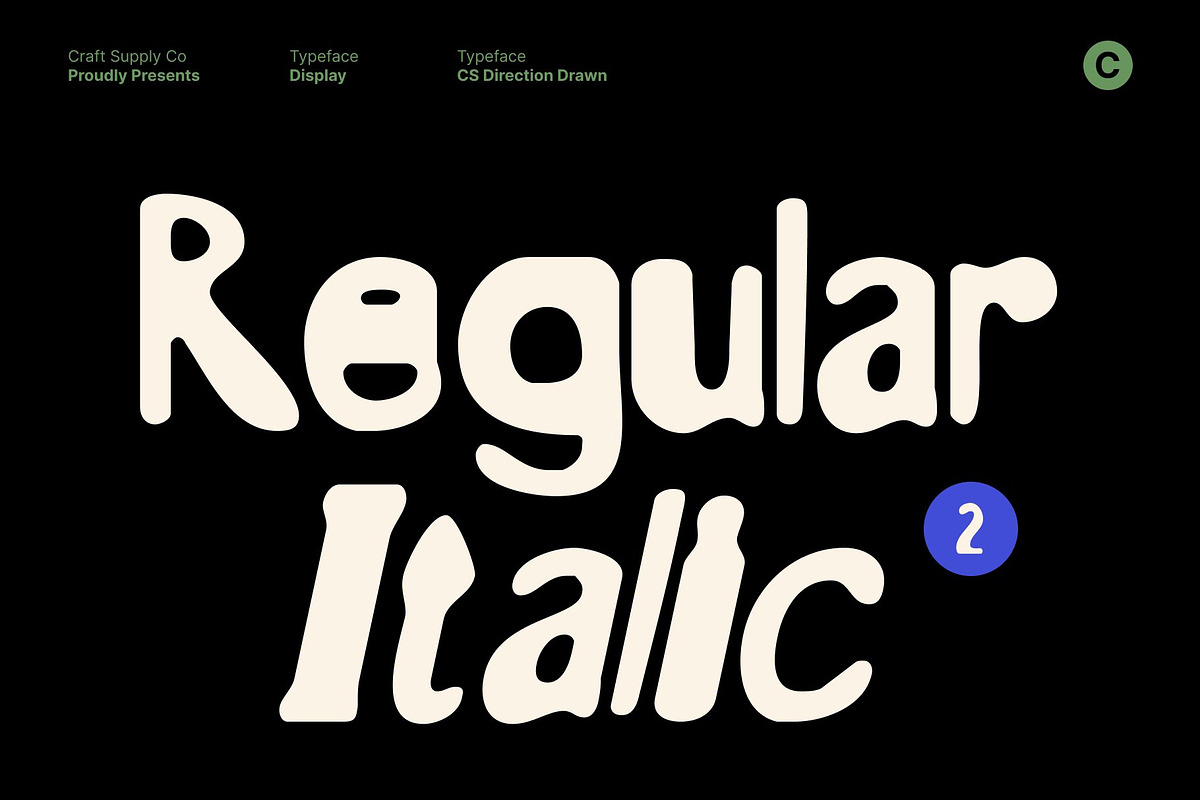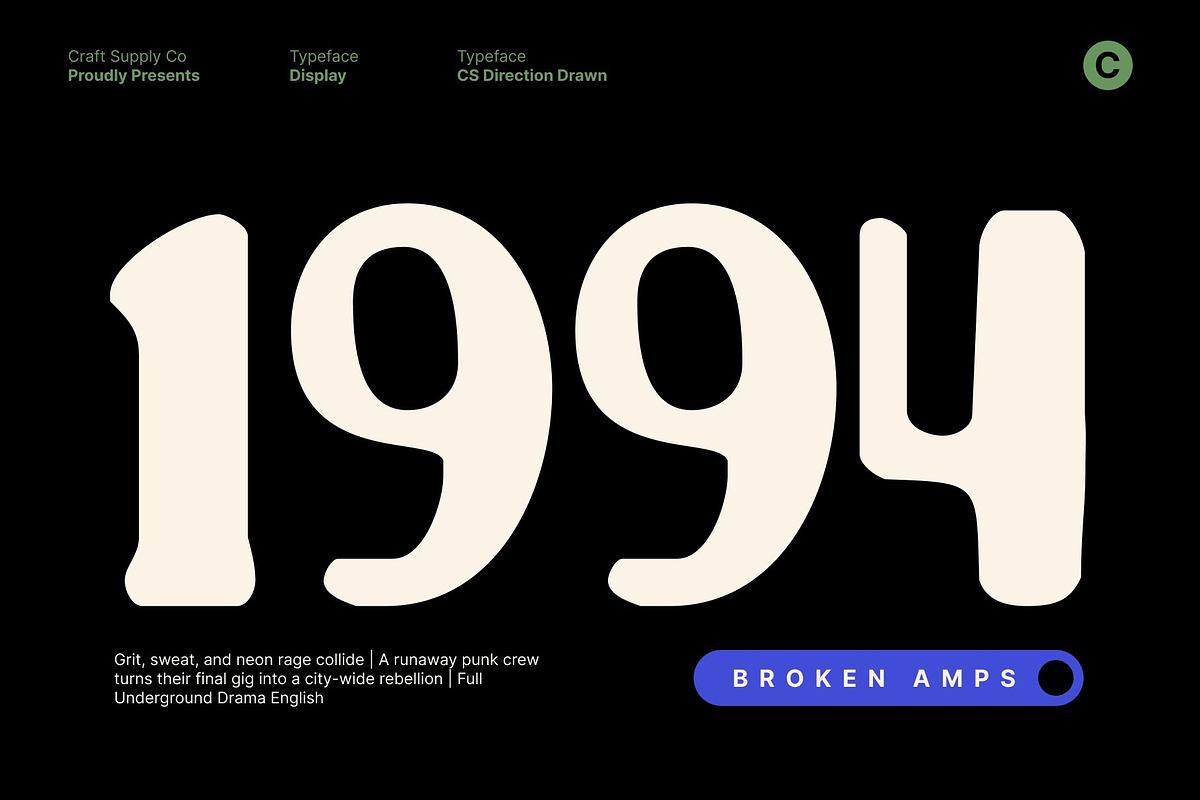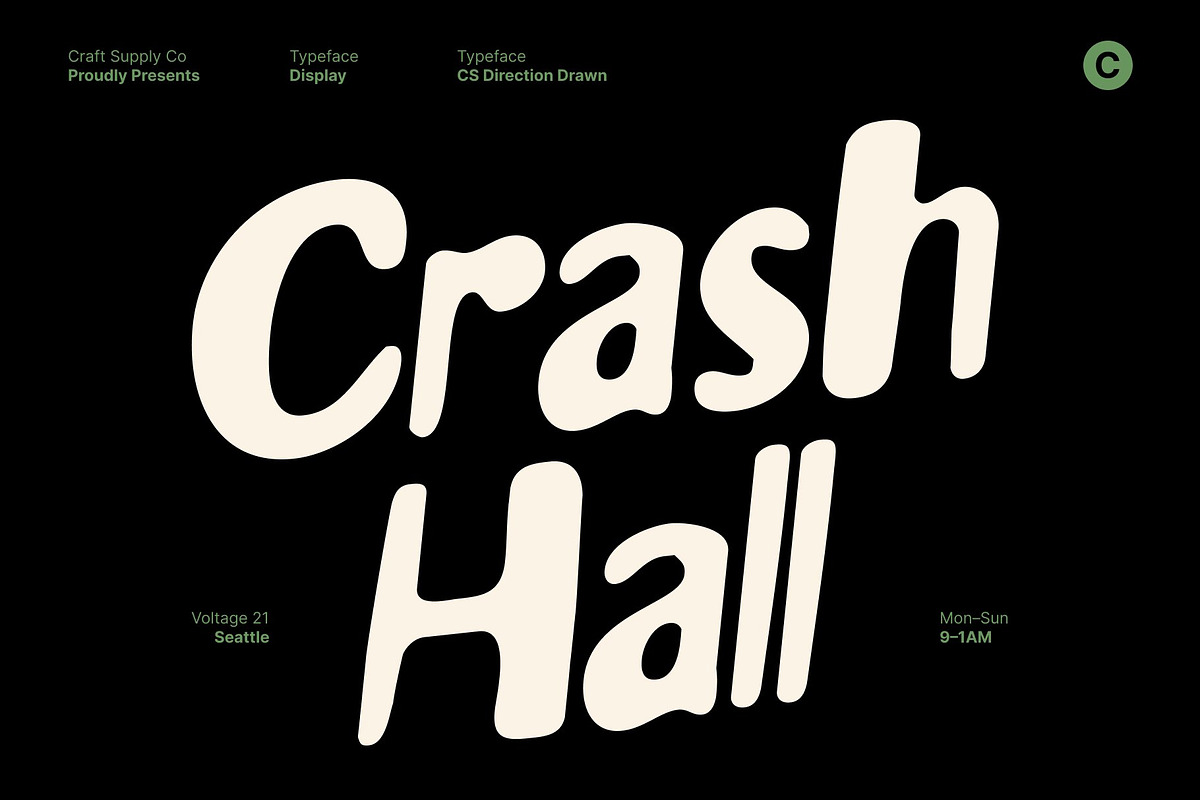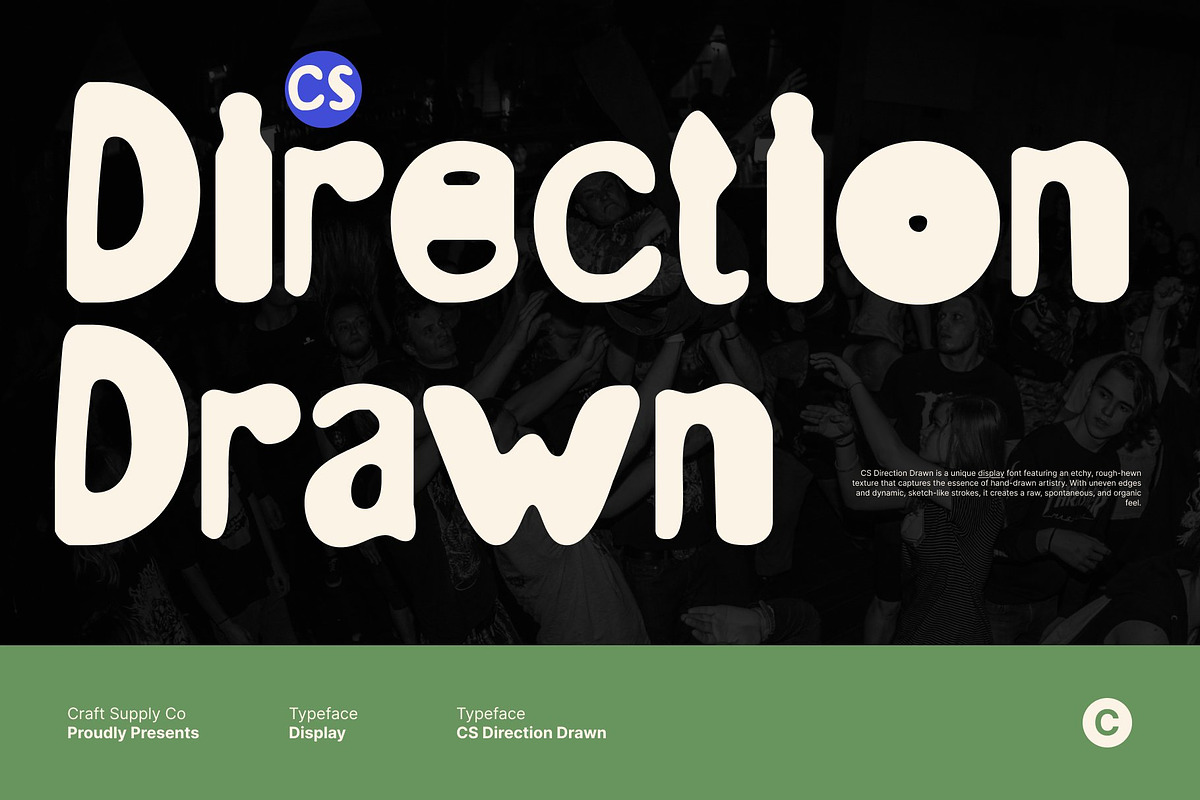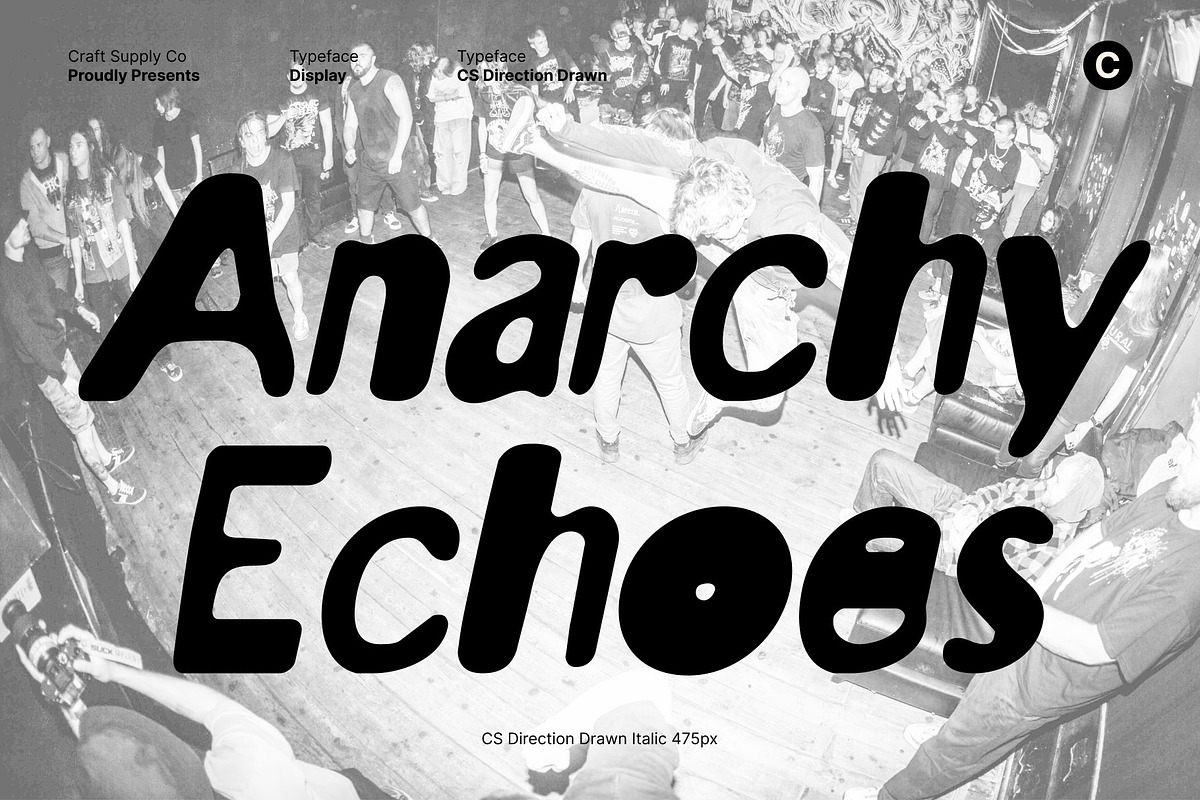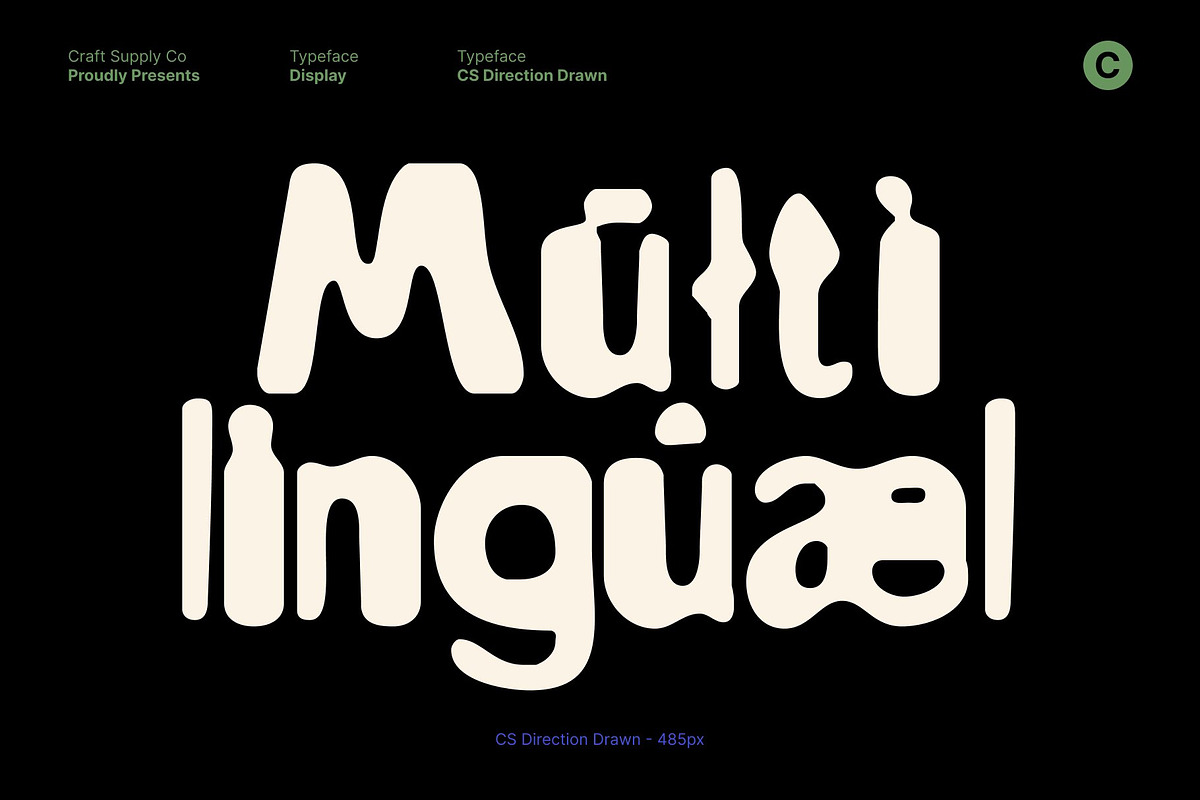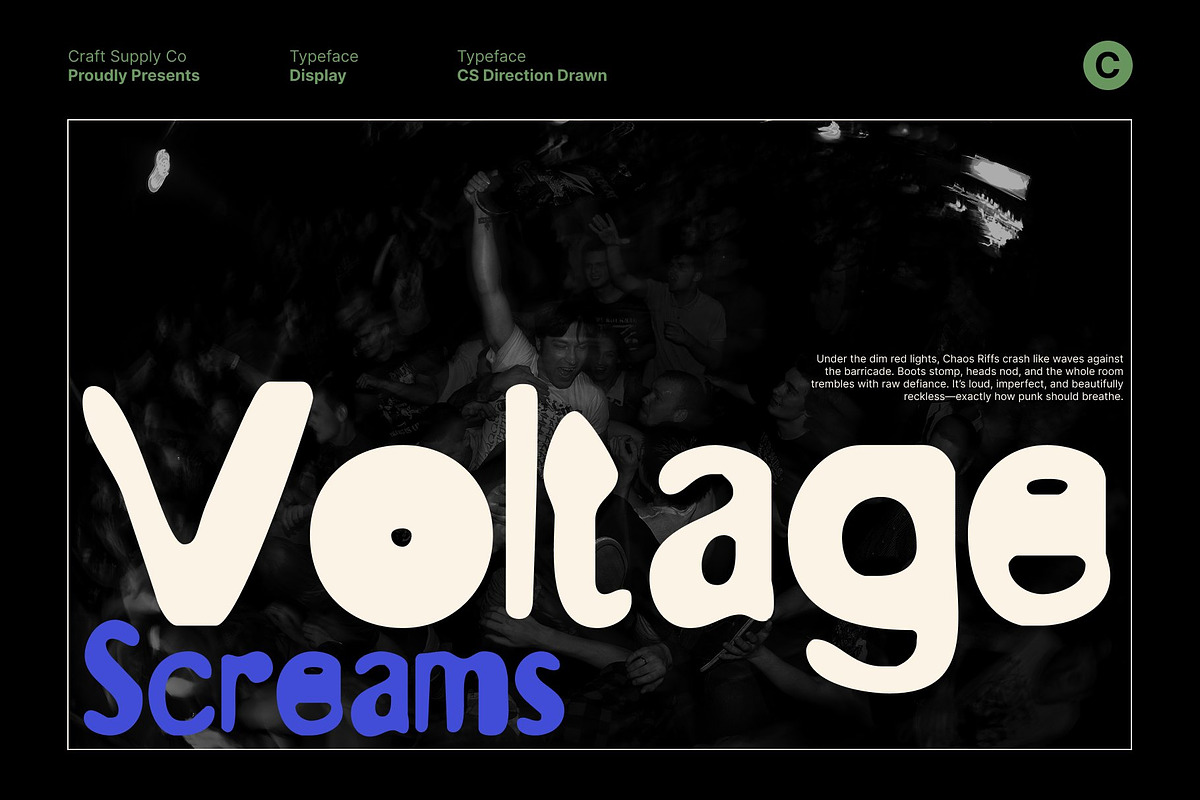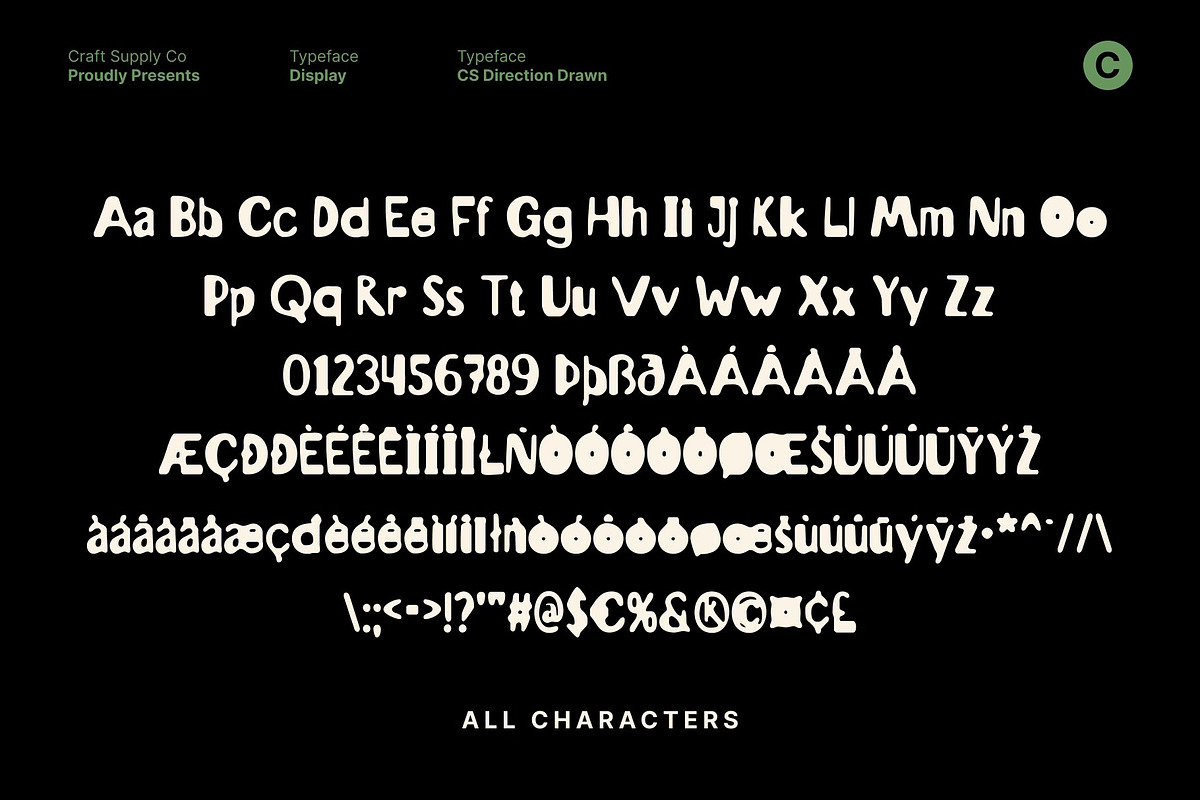
CS Direction Drawn
CS Direction Drawn – Playful Display Font with Soft Drawn Texture and Energetic Personality
Bold, Friendly Shapes for Energetic Visuals This is a playful and energetic display font designed to bring movement, excitement, and personality to any project. Its bold strokes and friendly letterforms create an instantly approachable look, making it perfect for designs that want to feel youthful, vibrant, and full of life.
Hand-Drawn Texture for Soft, Artistic Imperfection What makes truly distinctive is its subtle drawn texture. This handcrafted detail softens the bold shapes, giving the font a warm, natural, and artistic feel. The irregularities in each stroke add character and charm, enhancing the font’s authenticity.
A Brutal Yet Friendly Personality for Casual and Youthful Designs Alongside its soft texture, also carries a slightly brutal, raw visual edge adding a fun contrast to its playful structure. This combination of softness and boldness results in a unique, eye-catching personality that works beautifully for youth branding, fun packaging, greeting cards, posters, and casual creative projects. It delivers impact without losing its friendly, relatable vibe.
Versatile for Branding, Social Content, and Creative Expression Whether you’re crafting energetic branding, designing playful merchandise, or creating engaging social media posts, adapts effortlessly. Its expressive strokes, hand-drawn warmth, and youthful energy make it a versatile choice for modern designers who want to bring joy and creativity into their work.